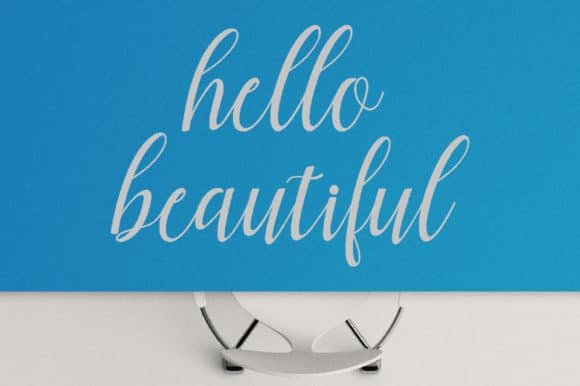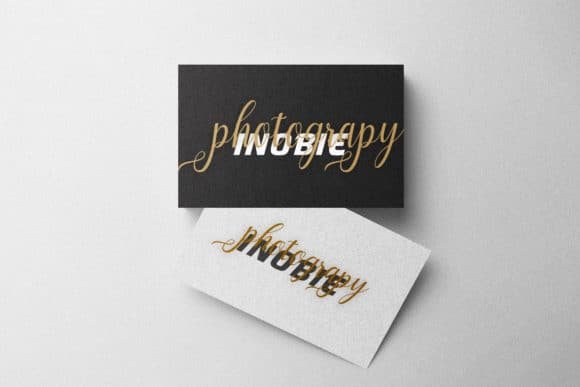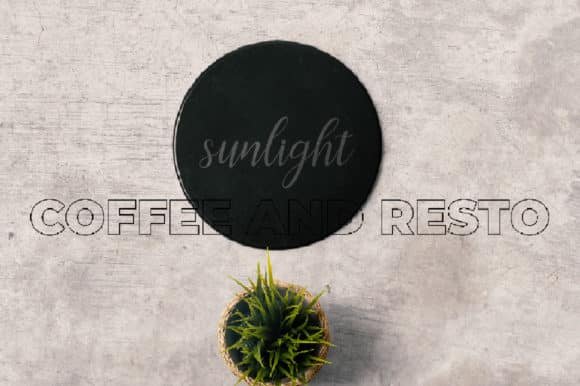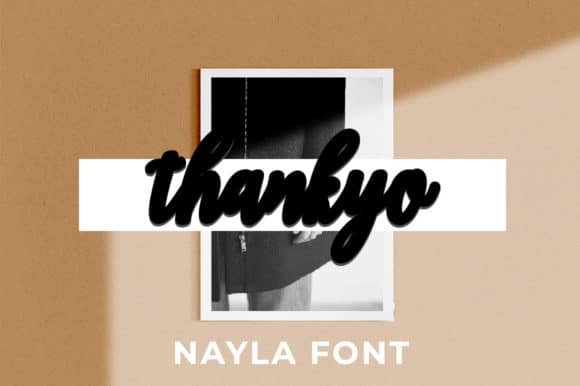
Nayla is a playful and sophisticated handwritten font. Every character beautifully flows into the next one, creating superb typography for any creative project! This font is PUA encoded which means you can access all of the glyphs and swashes with ease!